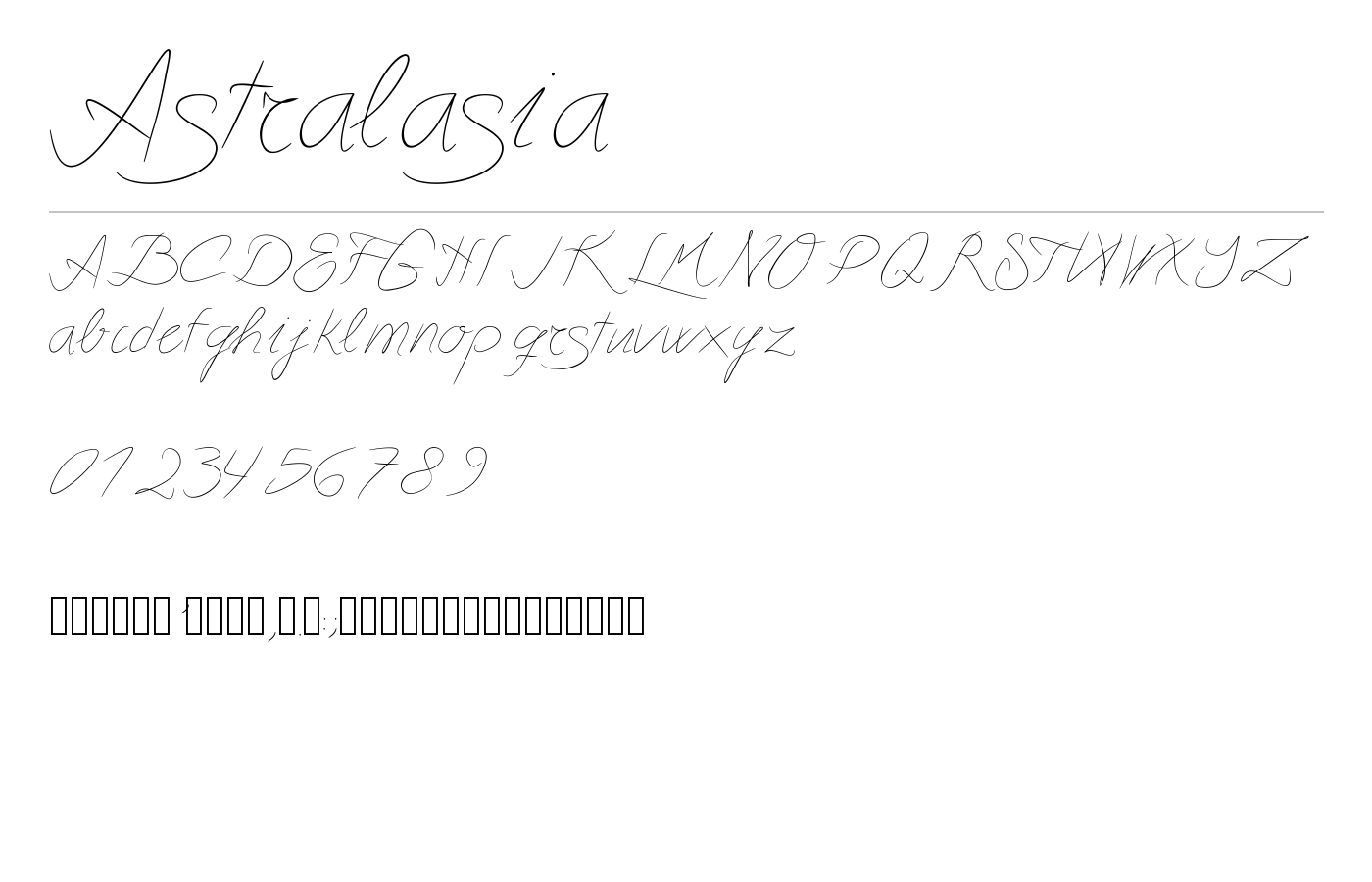
Astralasia is a delicate, handwritten script font characterized by its slender, flowing strokes and elegant, slightly whimsical letterforms. Its light weight and graceful curves give it an airy, feminine feel, making it ideal for sophisticated branding, invitations, or personal projects where a touch of charm and refinement is desired. With its clean, stylish appearance, Astralasia works beautifully in headlines and decorative text, adding a personal and artistic flair.
Astralasia Font
About Astralasia Font